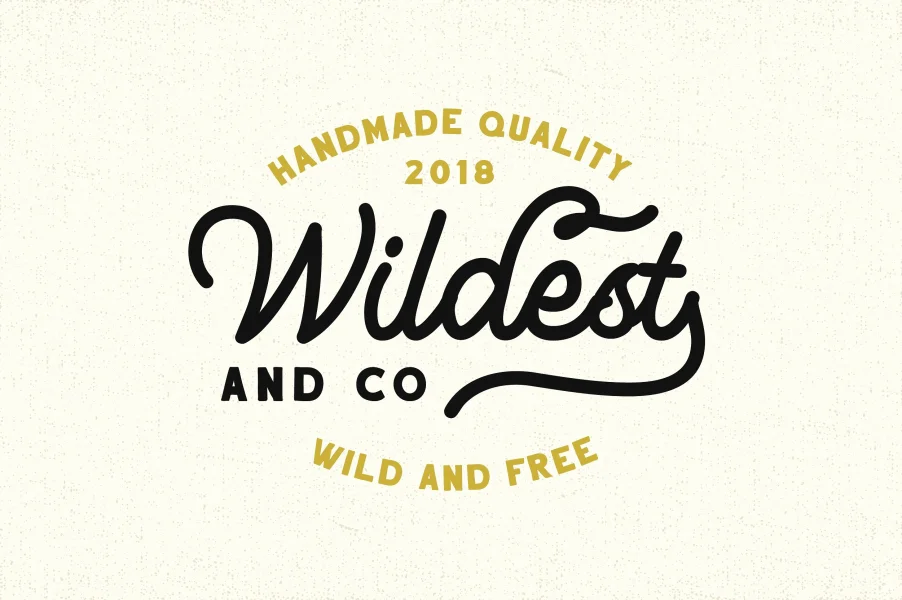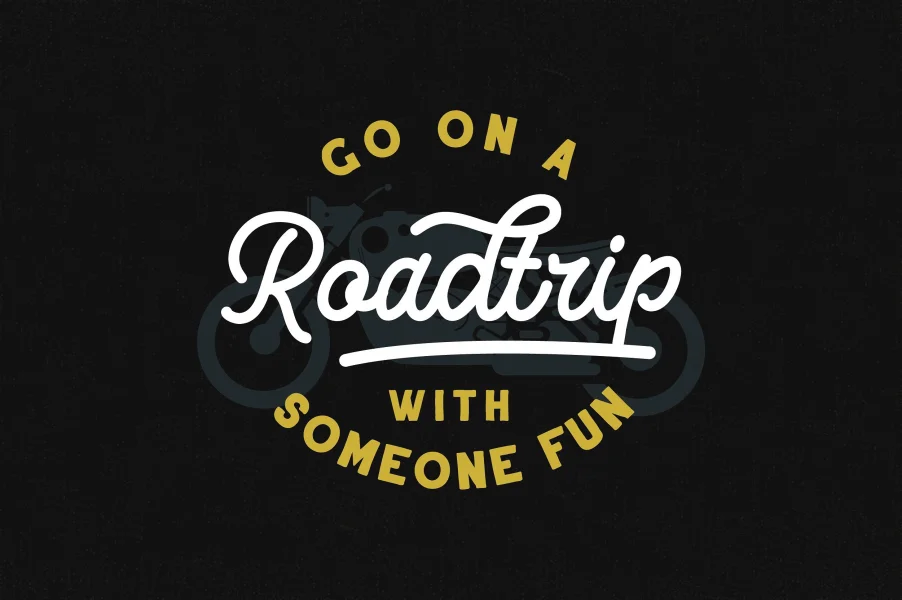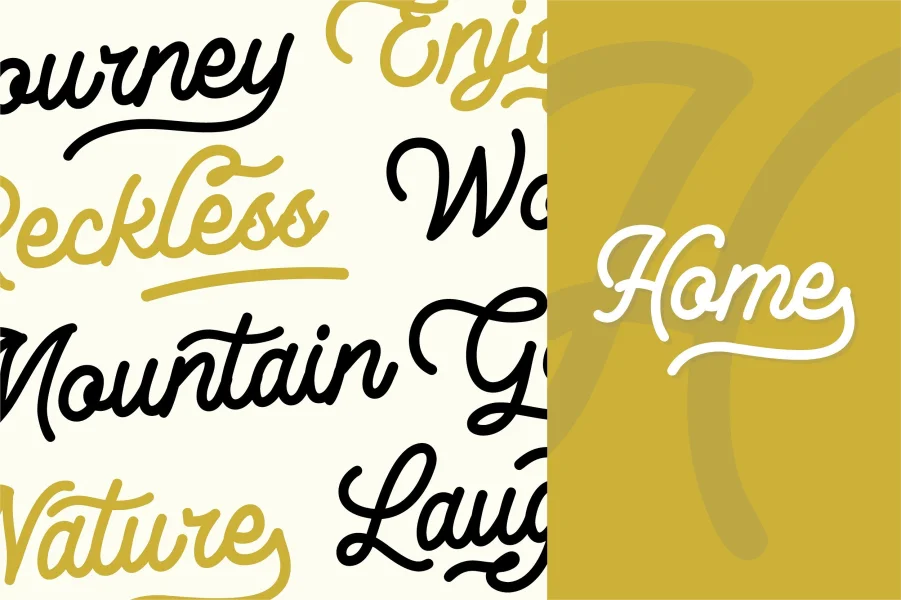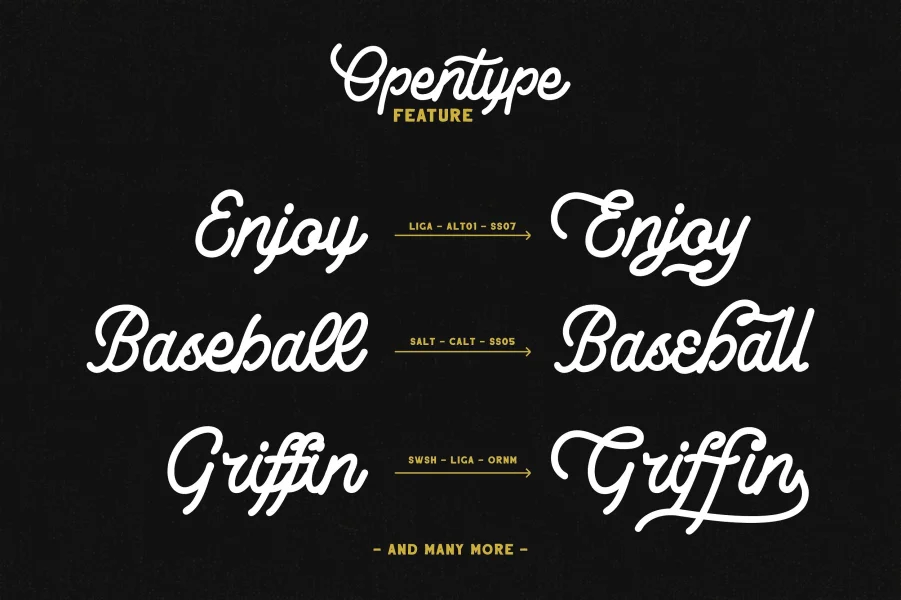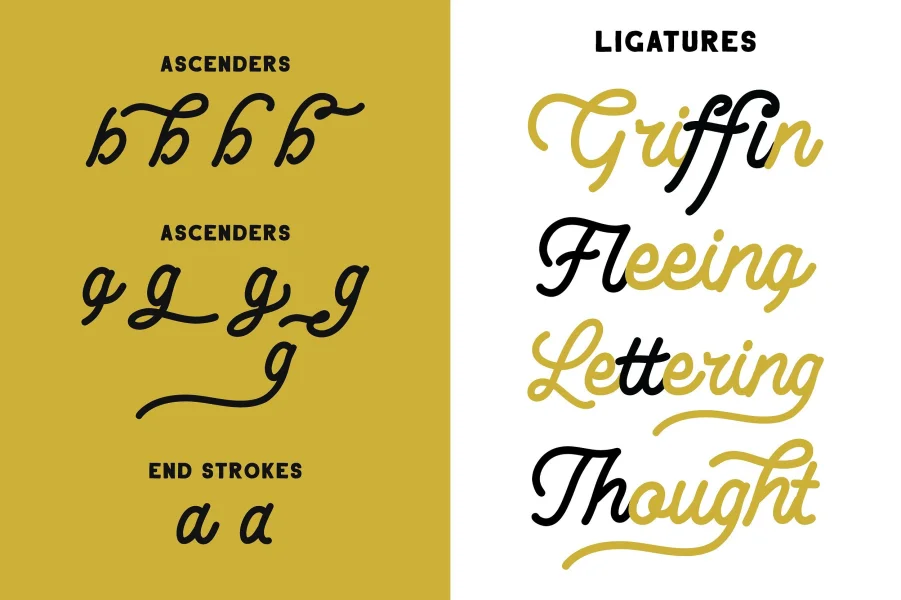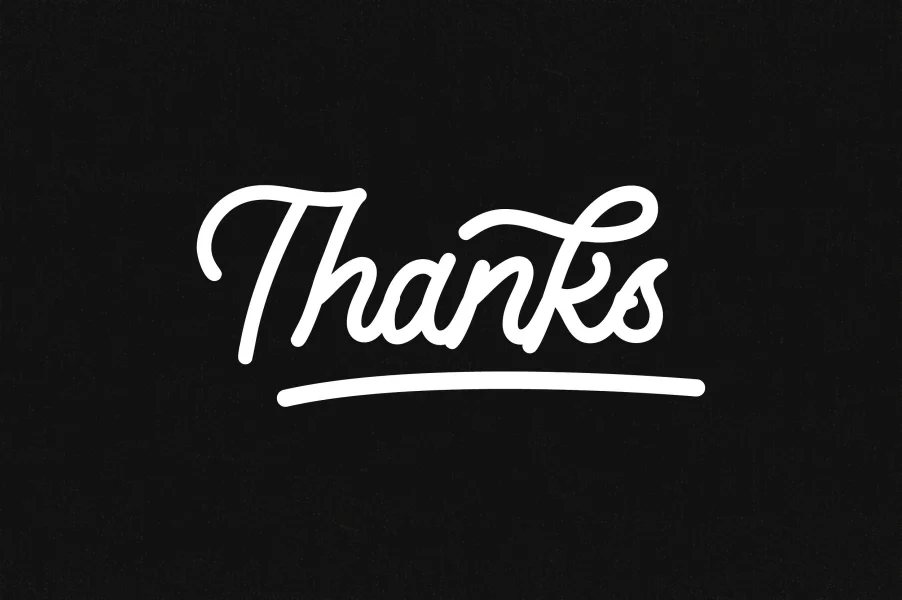
Lesley is a High quality monoline script font with swashes inspired by adventorous vibe and vintage design. Plus OpenType features with Stylistic Alternates, Swashes, Ligatures, Stylistic set, Terminal Form and Ornament that allows you to mix and match pairs of letters to fit your design. This font good for vintage design, t-shirt, logo, labels,badges, posters and etc.